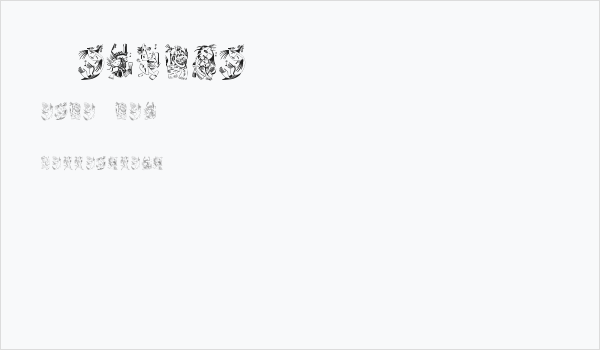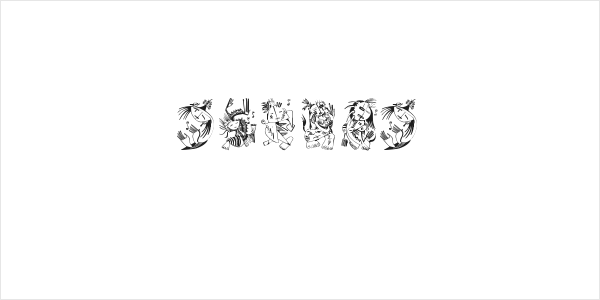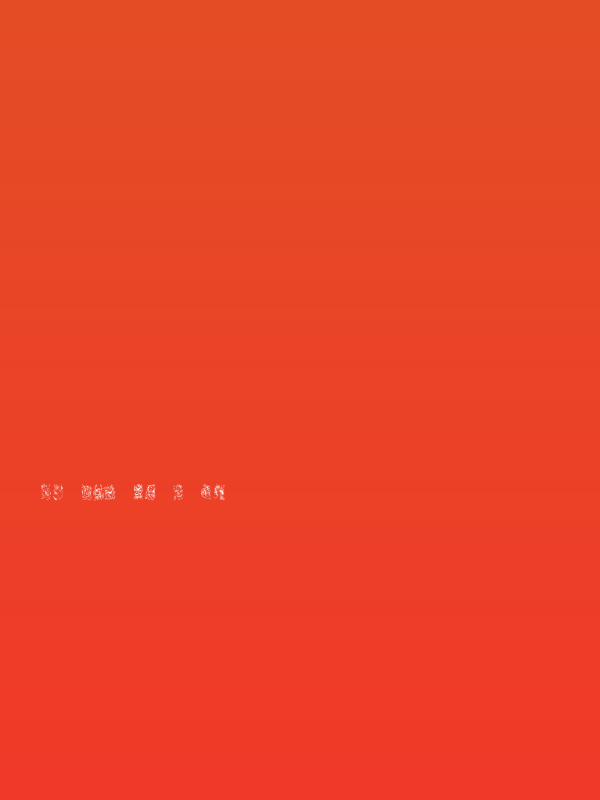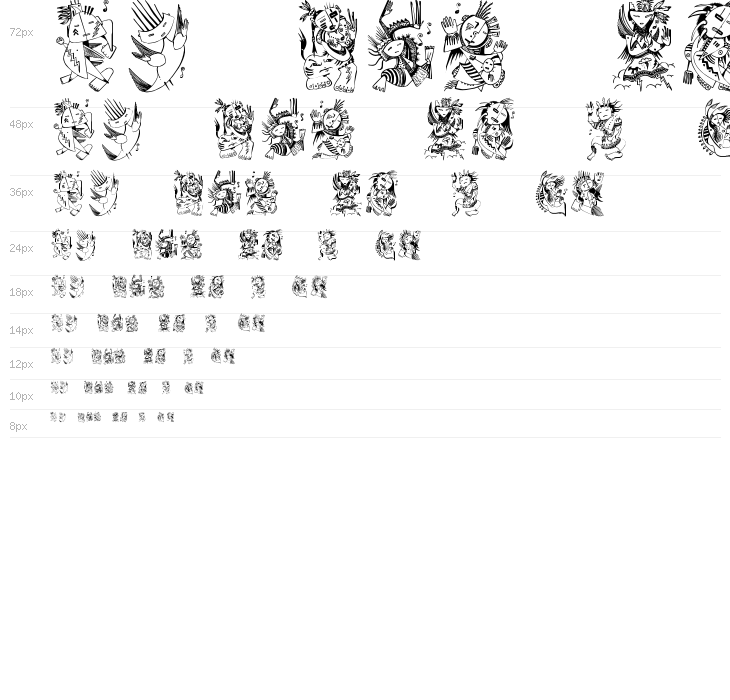
Z-Most Kachina 3 Font
Z-Most Kachina 3 Description
This is not a traditional font but rather a collection of intricate, artistic illustrations representing various characters or symbols. Each character is depicted with detailed, stylized imagery that resembles cultural or mythical figures. The designs are highly decorative, featuring complex patterns and motifs that suggest a strong cultural or artistic influence. These elements are not suitable for typical text representation but serve as unique artistic expressions.
| Use Case | Artistic displays, cultural exhibitions, decorative purposes. |
| Proposed Projects | Ideal for cultural art projects, decorative posters, or thematic graphic design work. |